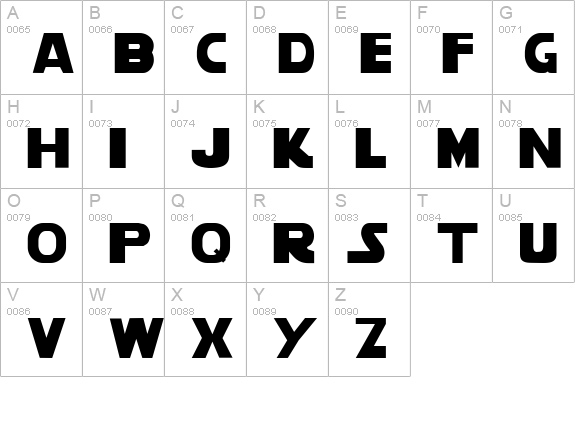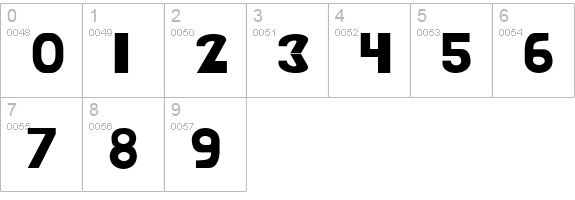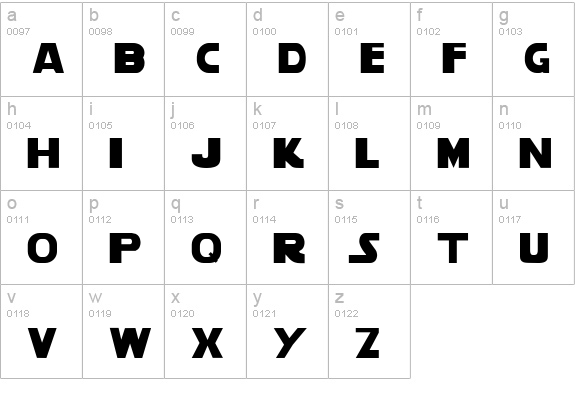
StarVader Font Details
Introducing StarVader, a stunning and captivating font that will transport your designs to a whole new galaxy of creativity. With its sleek and futuristic appearance, this typeface is perfect for any project that requires a touch of cosmic elegance. StarVader boasts clean lines and sharp edges, reminiscent of the brilliance and precision of a shooting star. Its unique letterforms are carefully crafted to evoke a sense of otherworldly beauty, making it an ideal choice for logos, headlines, posters, and more. But what truly sets StarVader apart is its accessibility. This font is not only visually striking, but it is also freely available to download at FontsMarket.com. Yes, you read that right – free! Now you can add a touch of interstellar magic to your designs without breaking the bank. Whether you're a professional designer looking to add a touch of celestial charm to your latest project or a hobbyist seeking to explore new frontiers of creativity, StarVader is the perfect companion. Its versatility and eye-catching design make it a font that is sure to make your work shine like a supernova. So why wait? Download StarVader today from FontsMarket.com and let your imagination soar among the stars. With this free font at your fingertips, the possibilities are endless.